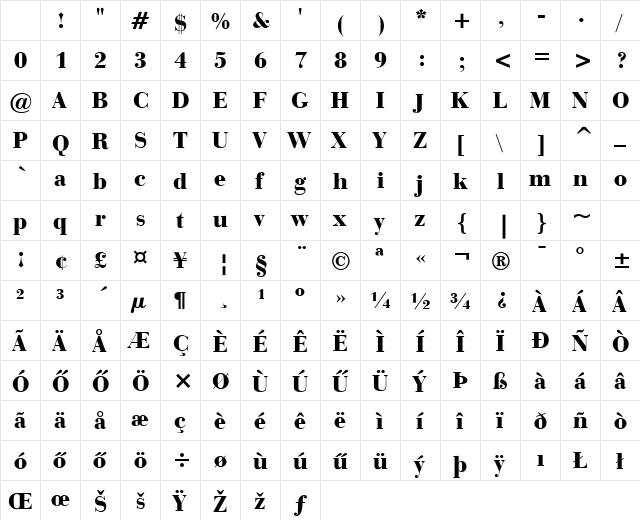
Complete Bauer-Bodoni BLHU Black glyph index. Displaying only characters natively supported by Bauer-Bodoni BLHU Black font.
Bauer-Bodoni BLHU is a composed and adaptable typeface that performs quietly and consistently across a wide range of design contexts.